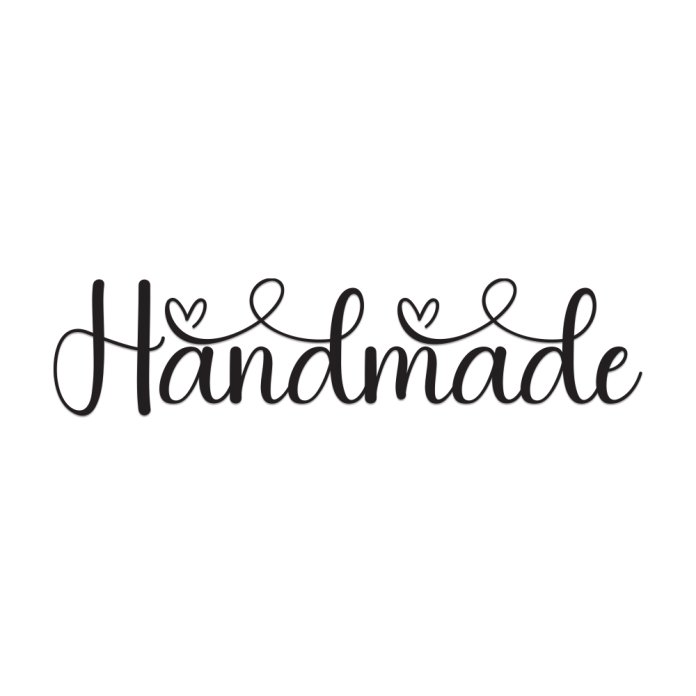
Handmade is a genuine and expressive handwriting font that feels like it was crafted with care. With its natural strokes and slightly imperfect lines, this font brings a raw, artistic touch to your designs — perfect for projects that embrace creativity and authenticity.
Ideal for personal branding, DIY projects, packaging, crafts, quotes, and handwritten notes, Handmade adds a personal feel that stands out in a digital world.
Authentic, hand-drawn handwritten style
Natural letterforms with a personal touch
Great for creative projects, stationery, and artistic branding
Bring heart and soul into your designs with Handmade, the font that feels truly personal.